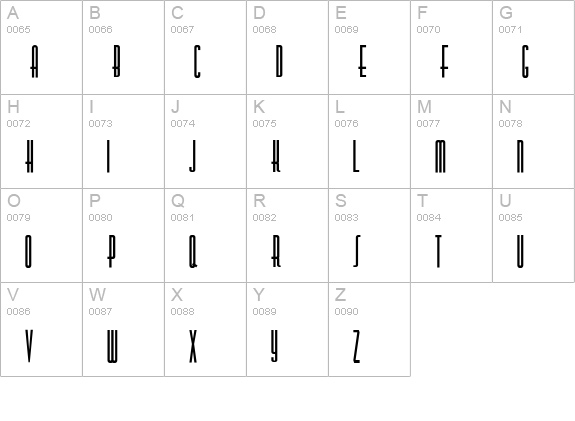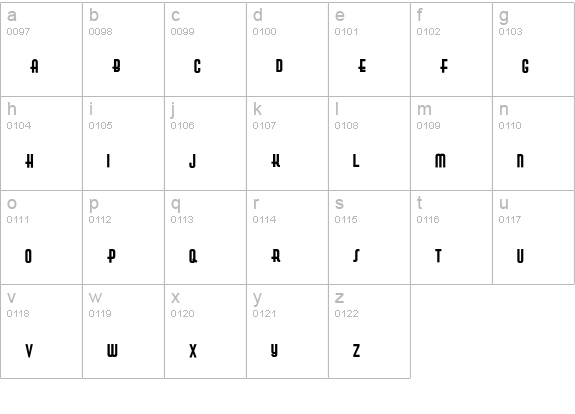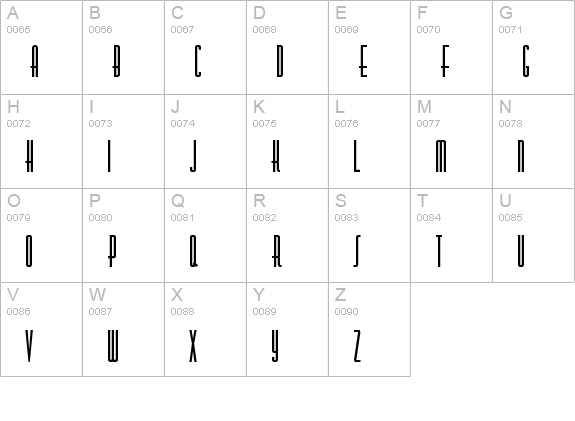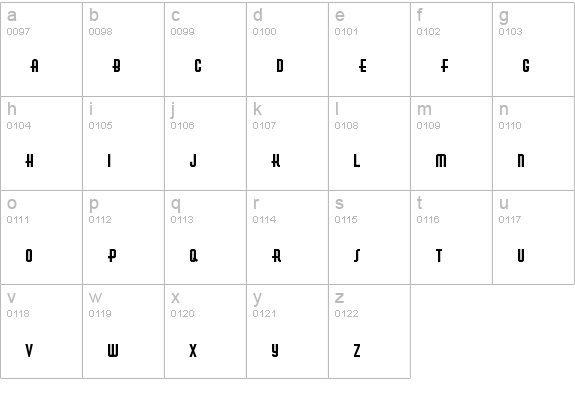
Nickodemus-Extremus Font Details
Introducing Nickodemus-Extremus font - a bold and dynamic typeface that commands attention with its sharp edges and unique design. This modern font is perfect for making a statement and adding a touch of flair to your projects. Nickodemus-Extremus font strikes the perfect balance between sophistication and edginess, making it ideal for a wide range of creative applications. What makes Nickodemus-Extremus font even more appealing is that it is available for free download at FontsMarket.com. Yes, you read that right - this stunning font can be yours at no cost, allowing you to unleash your creativity without breaking the bank. Whether you're working on a branding project, poster design, or any other creative endeavor, Nickodemus-Extremus font is sure to elevate your work to the next level. Don't miss out on the opportunity to add this versatile and eye-catching font to your collection. Download Nickodemus-Extremus font today and see the magic it brings to your projects!